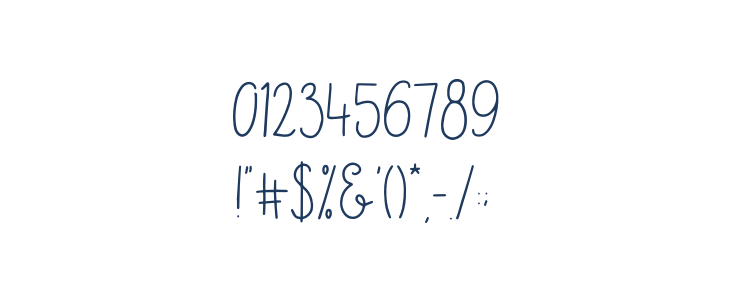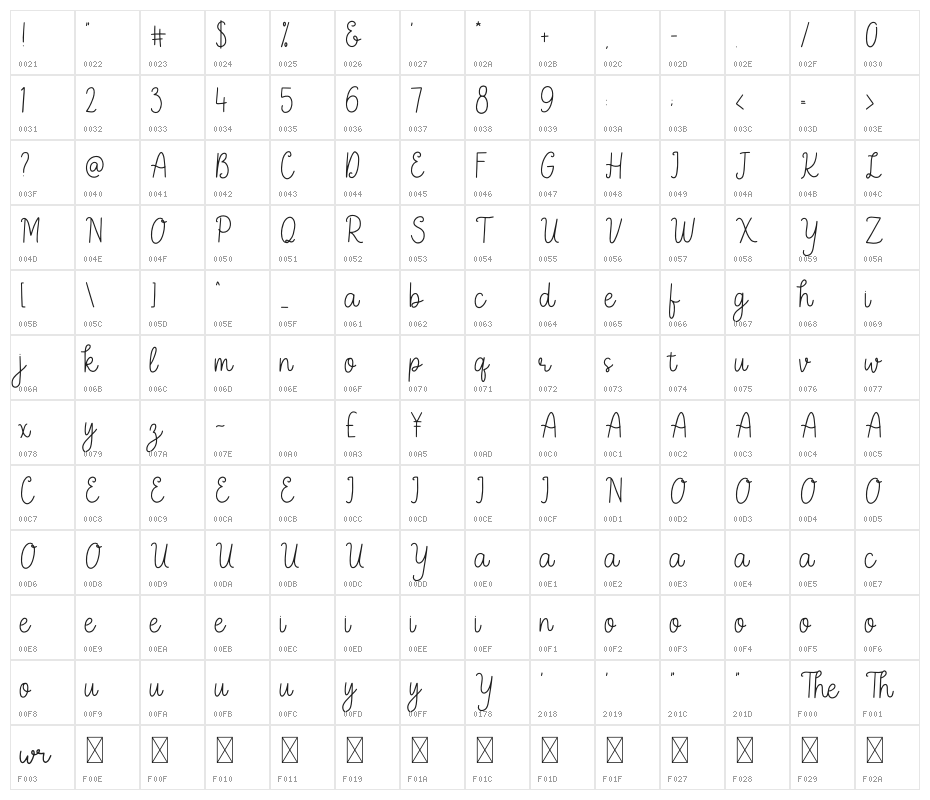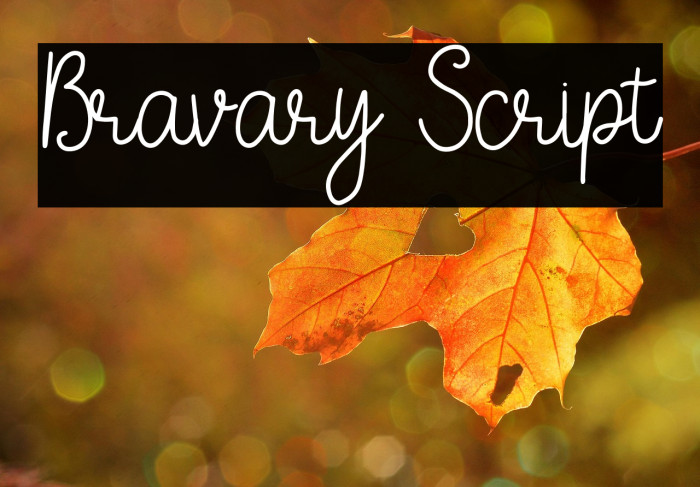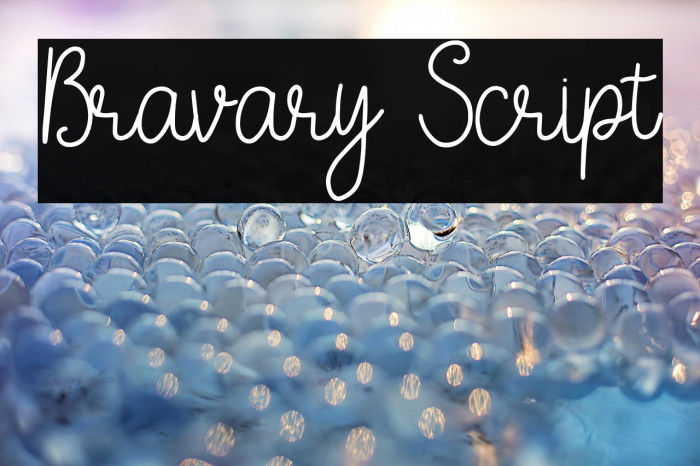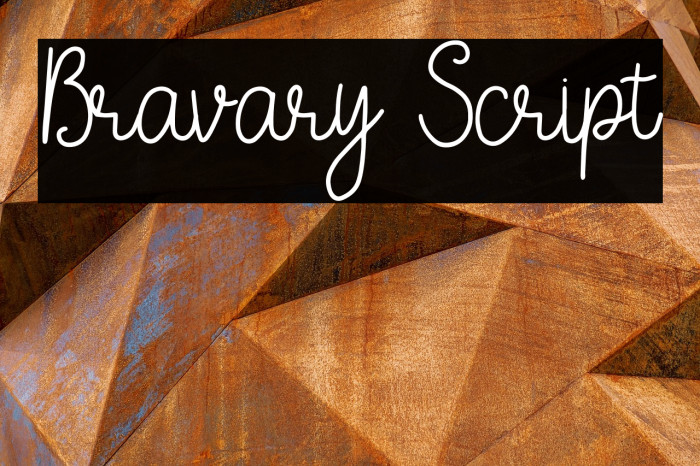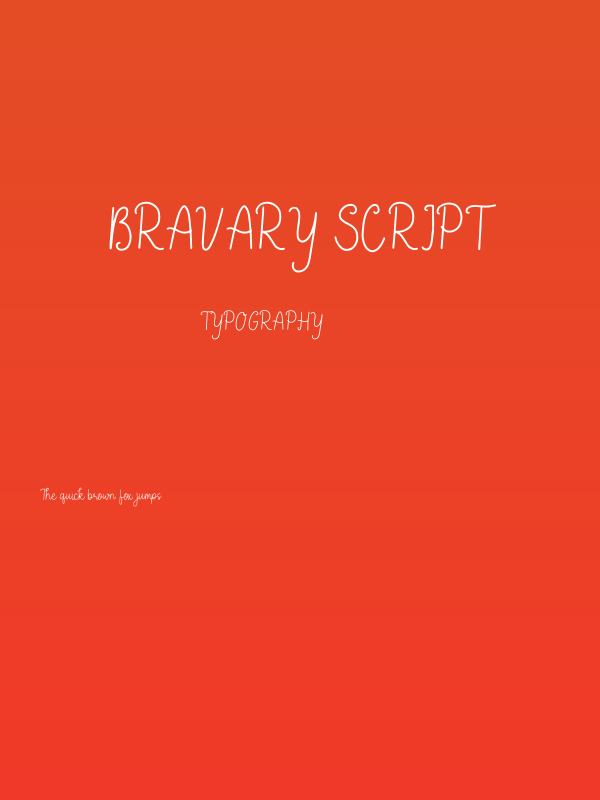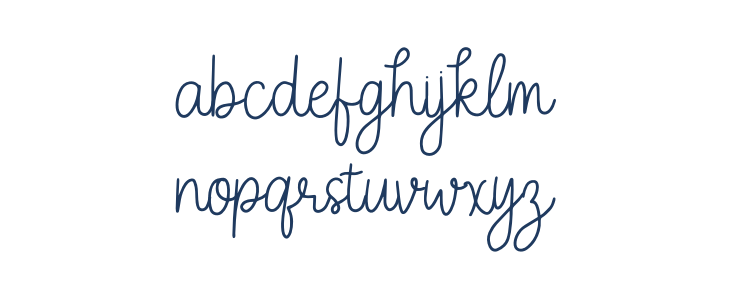
Bravary Script Font
Bravary Script Description
This font features a flowing, cursive style with elegant loops and swirls, giving it a handwritten appearance. The letters are connected, creating a seamless and fluid look. The uppercase letters are tall and slightly narrow, while the lowercase letters maintain a consistent height, adding to the font's readability. The numbers and special characters are designed to match the overall script style, with smooth curves and a playful touch. This font exudes a sense of creativity and personal expression, making it ideal for projects that require a personal or artistic touch.